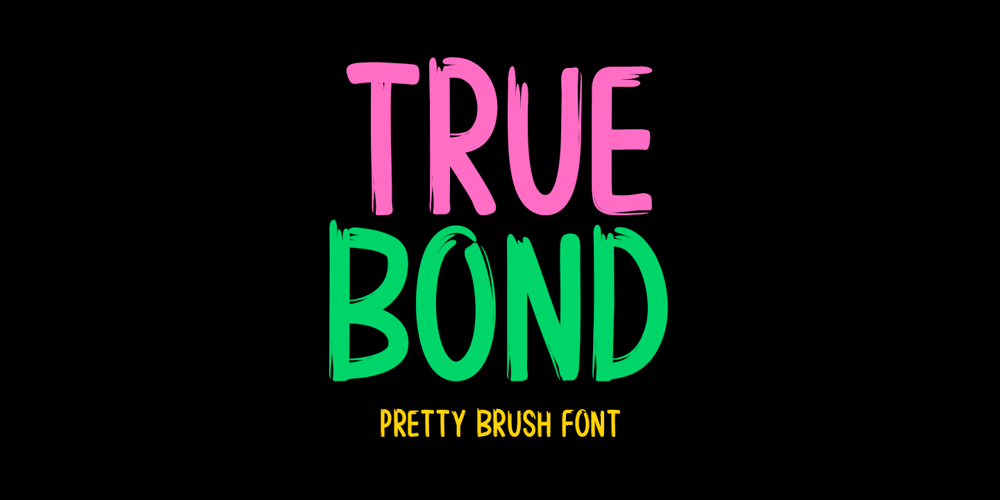
True Bond Font Family was designed by Md Shohail Bhuian and published by Seemly Fonts. True Bond contains 1 styles and family package options. A compelling brush display font, True Bond is made to give your projects an upscale look. Because of its versatility, it may be easily incorporated into a variety of design projects, fostering your creativity and showcasing your best work.–Uppercase